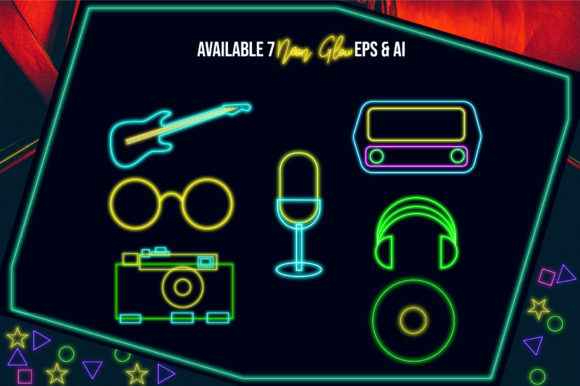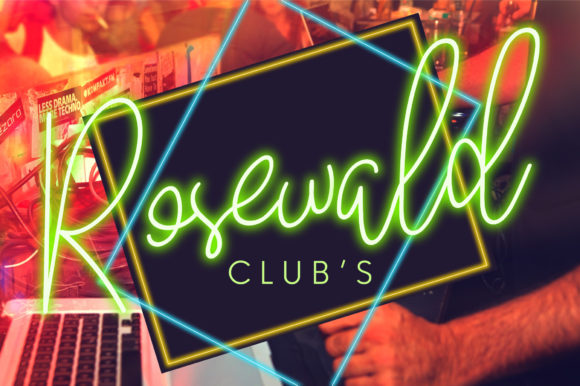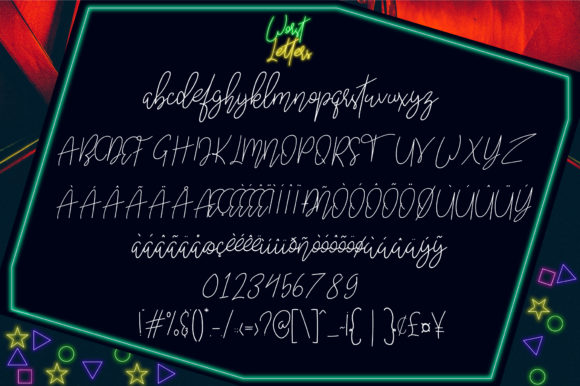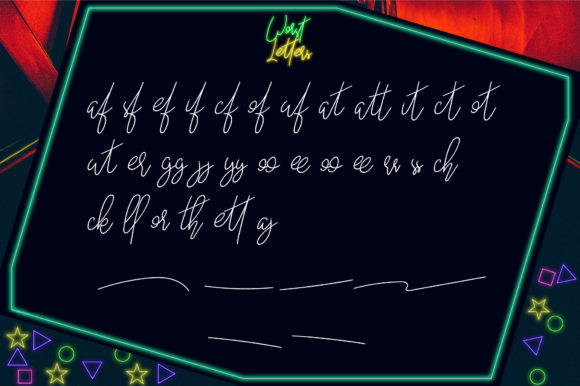
Worst Letters Font
About Worst Letters Font
The Worst Letters is a new monoline script font. It has a natural feel and is perfect for signatures, branding, and much more!